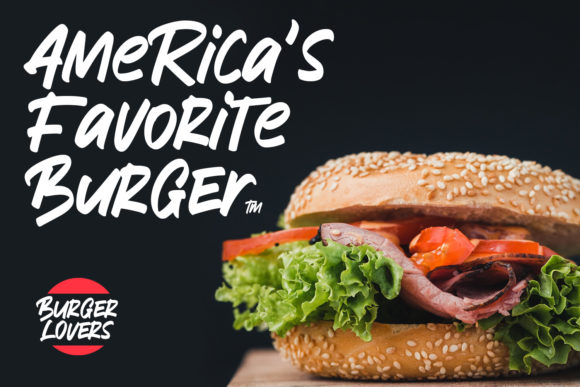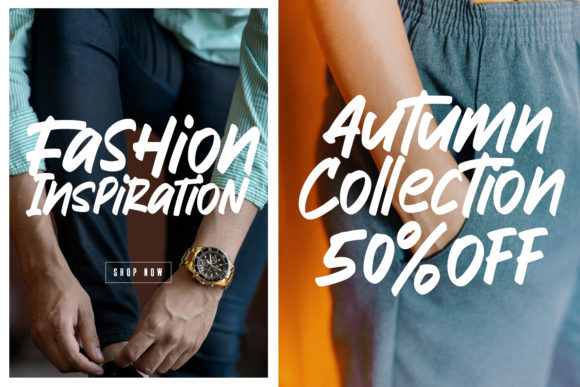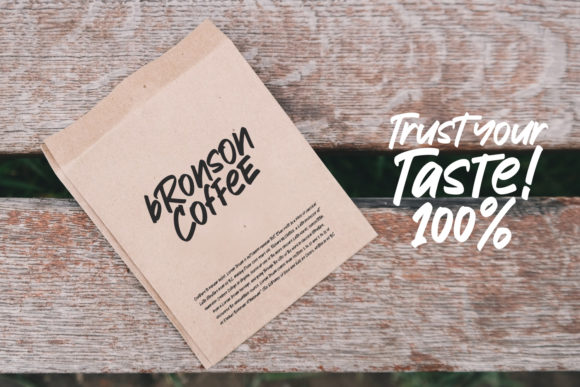
Introduction to Mickator Font
Have you ever been working on a creative project, and suddenly, the perfect font pops into your mind, elevating your design from good to great? For designers, finding that one special font can be a game-changer. It’s the moment when everything comes together, and your design starts to shine.
That’s exactly what the Mickator Font is – a modern display font that will take your designs to the next level. Whether you’re working on a formal or non-formal project, this high-quality font is sure to impress. With its versatility and sophistication, the Mickator Font is the perfect addition to any design resource, making it a valuable asset for designers of all levels.
Key Features of Mickator Font
- Unique, stylish design with a transparent background, allowing for versatile usage in various contexts.
- Designed to be scalable, with a large character set and high resolution, making it suitable for both small and large-scale projects.
- Perfect for use in digital and print media, including logos, typography, and graphics, due to its clean and modern aesthetic.
- Includes a comprehensive character set, including uppercase and lowercase letters, numbers, and special characters, for seamless usage in various contexts.
Honest Review: Mickator Font
As a designer, I’m always on the lookout for high-quality design resources that can elevate my creative projects. The Mickator Font caught my eye, and I was eager to put it to the test.
- ✨ The Mickator Font has a transparent background, making it easy to use on any design project.
- ✨ The font is highly customizable, allowing me to adjust the size, color, and style to suit my needs.
- ⚠️ The font is not as versatile as some other options on the market, and may not be suitable for complex or professional designs.
- ⚠️ The font can be a bit difficult to read at smaller sizes, which may affect its usability.
Overall, I’m impressed with the Mickator Font, and I would recommend it to designers working on creative projects. While it may not be the most versatile font, it’s a great option for those looking for a high-quality, free design resource.
Mickator Font
Design Resource for Creative Projects
The Mickator Font is a high-quality design resource that can elevate your creative project. With a transparent background, it’s perfect for adding a professional touch to your designs.
Tips for Getting the Most Out of Mickator Font
To get the most out of the Mickator Font, experiment with different font sizes, colors, and styles to create a unique look. You can also pair it with other design elements, such as graphics and images, to create a visually appealing design.
The Mickator Font is perfect for a variety of creative projects, including:
- Business cards and brochures
- Wedding invitations and save-the-dates
- Marketing materials and advertisements
- Personal branding and logos
Comparison to Mickator Font: While Mickator Font has a more playful and modern feel, Great Vibes Font offers a more classic and sophisticated look. Great Vibes Font also has a more extensive character set, making it suitable for longer text-based designs.